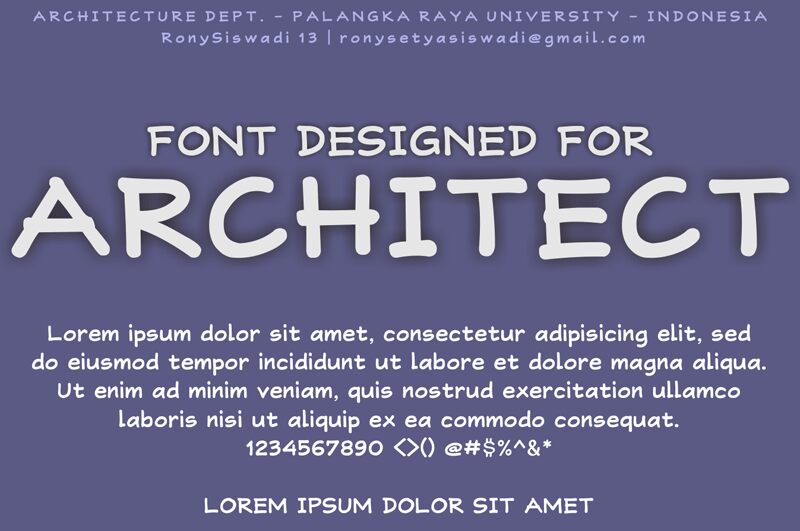
RonySiswadi 13 is a font that captures the essence of personal touch in digital typography. Crafted by Rony Setya Siswadi, this handwritten style font exudes a warm, inviting character with its semi-expanded width that offers readability without sacrificing its informal charm. The fluidity of its strokes conveys a sense of individuality and creativity, making it an excellent choice for projects which require a personal, bespoke feel.
Whether employed in branding, invitation design, or editorial content, RonySiswadi 13 adds an artisanal flair that can elevate the aesthetic appeal of any creative endeavor. Its handwritten nature ensures that each character brings forward a unique personality while maintaining consistency and elegance throughout the typeface. This balance between distinctiveness and uniformity makes RonySiswadi 13 not just visually appealing but also versatile in application across various mediums and contexts.